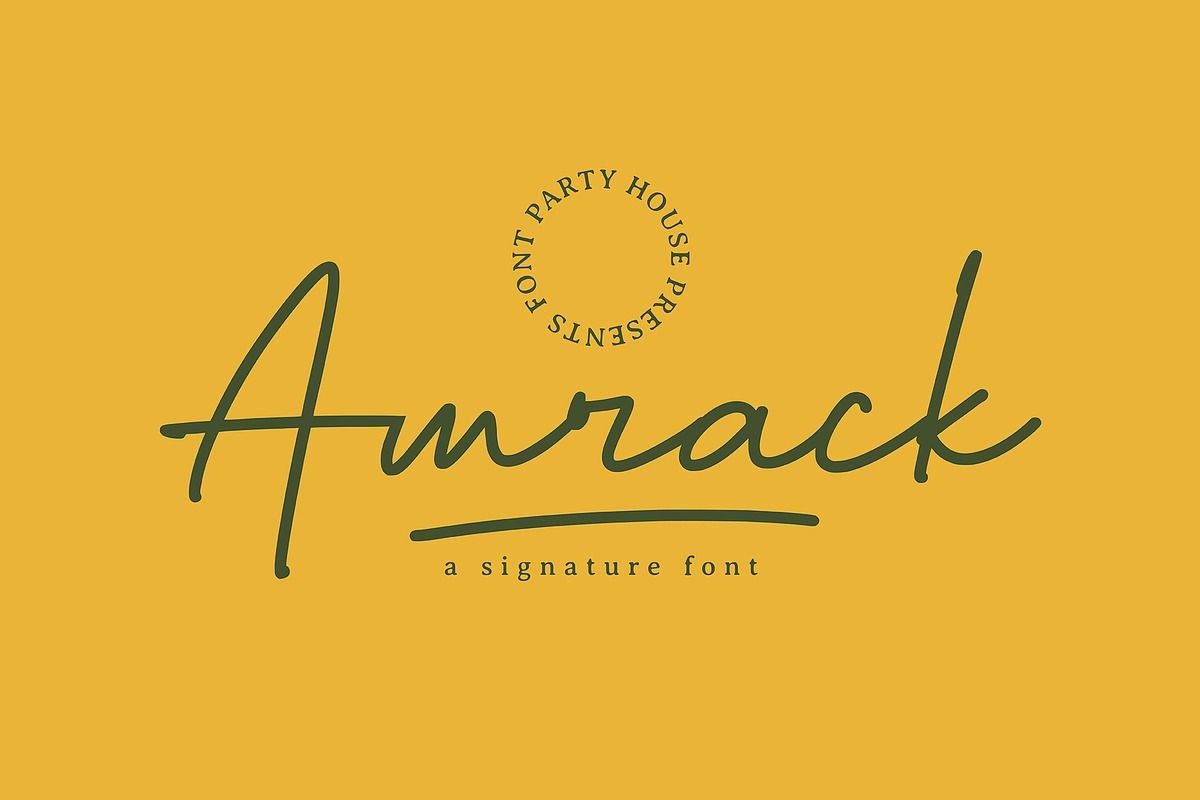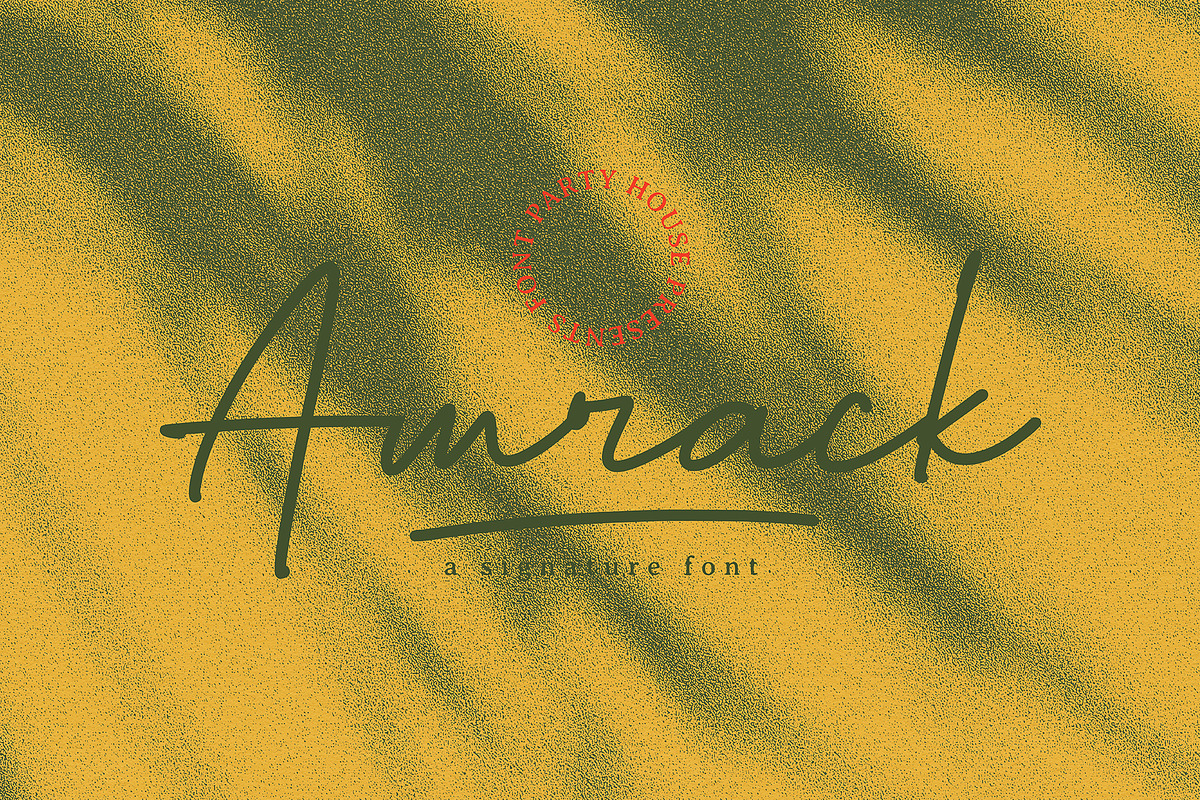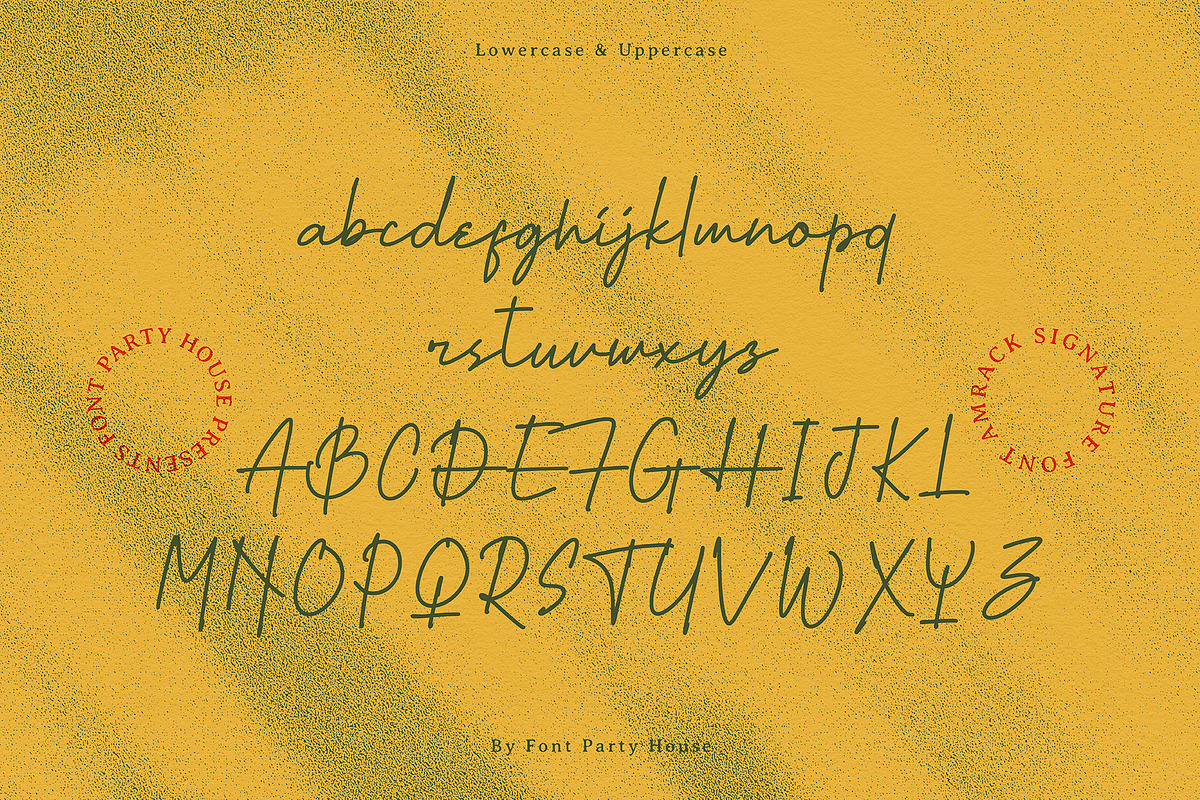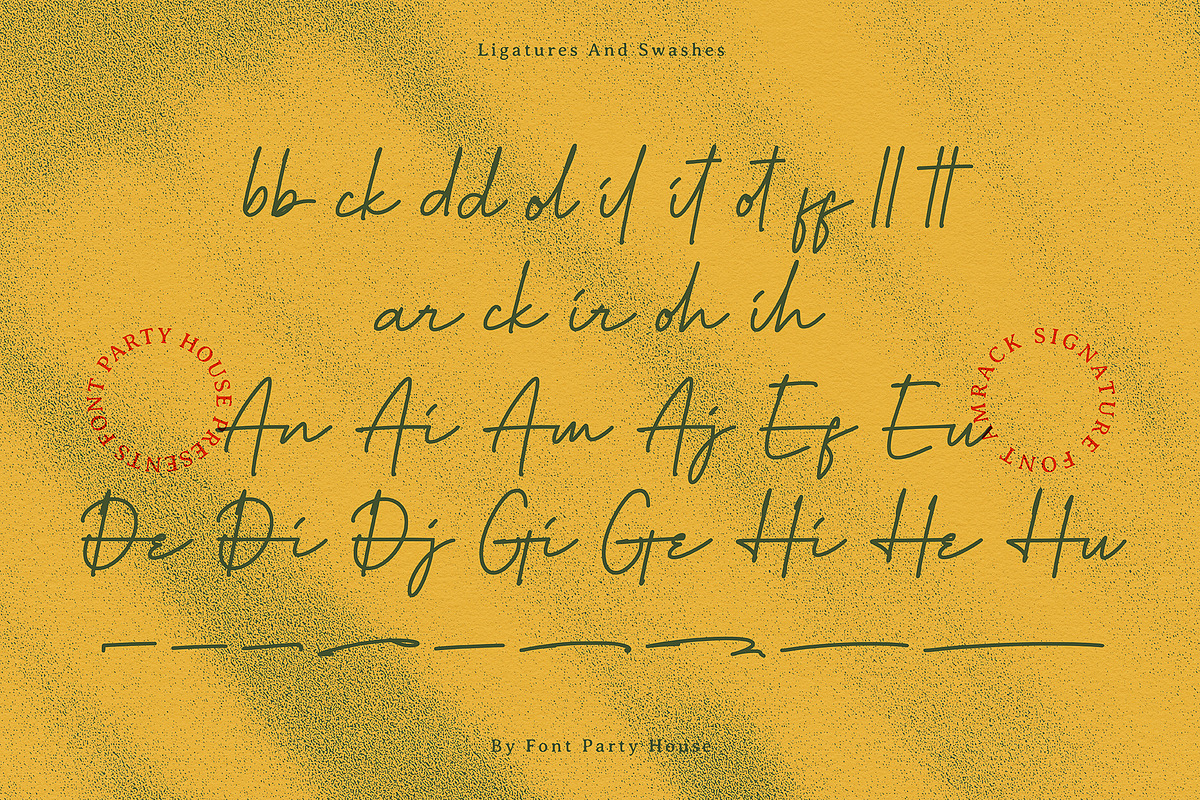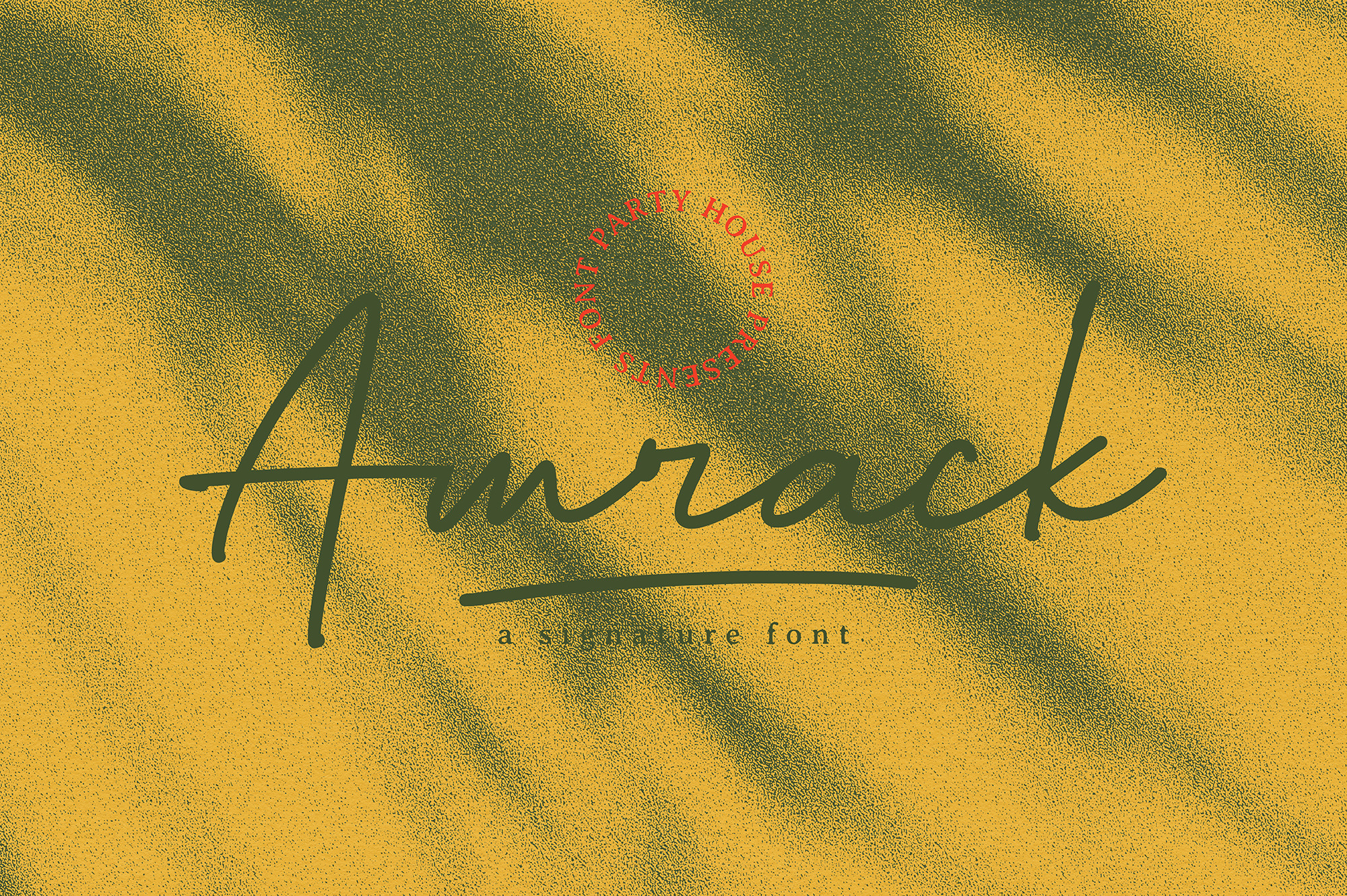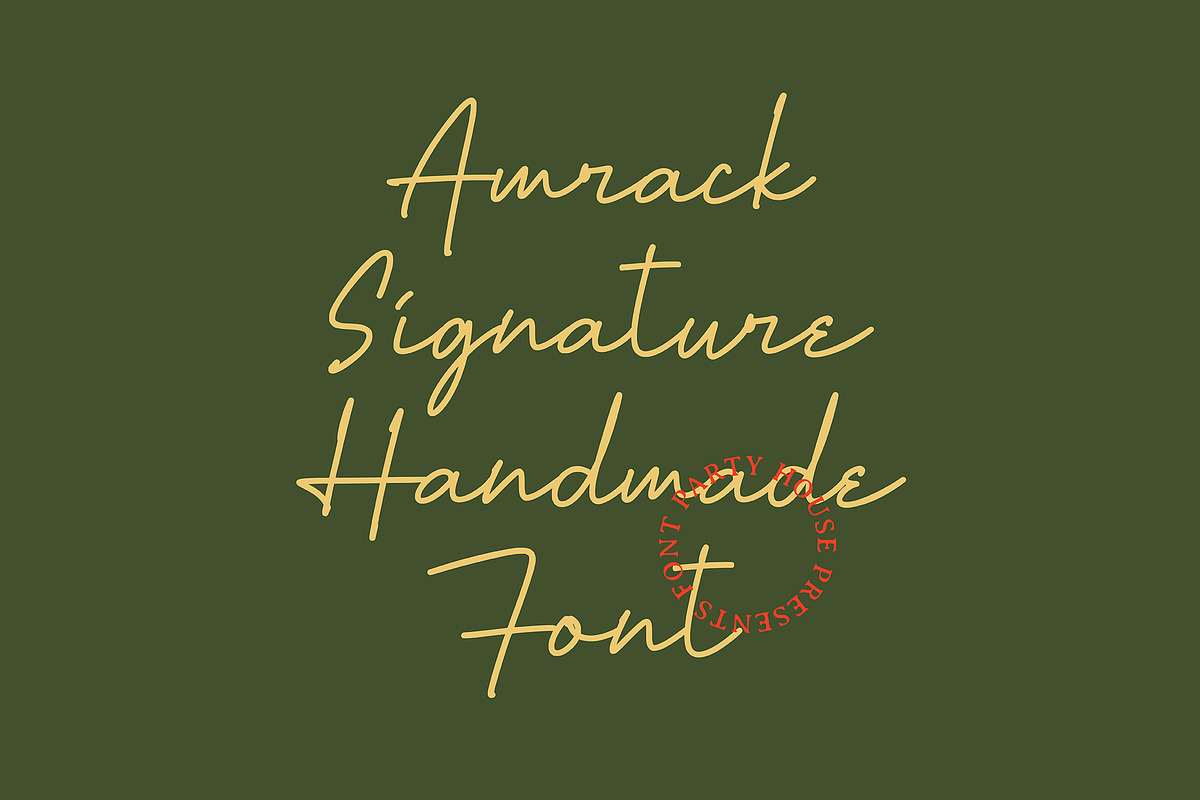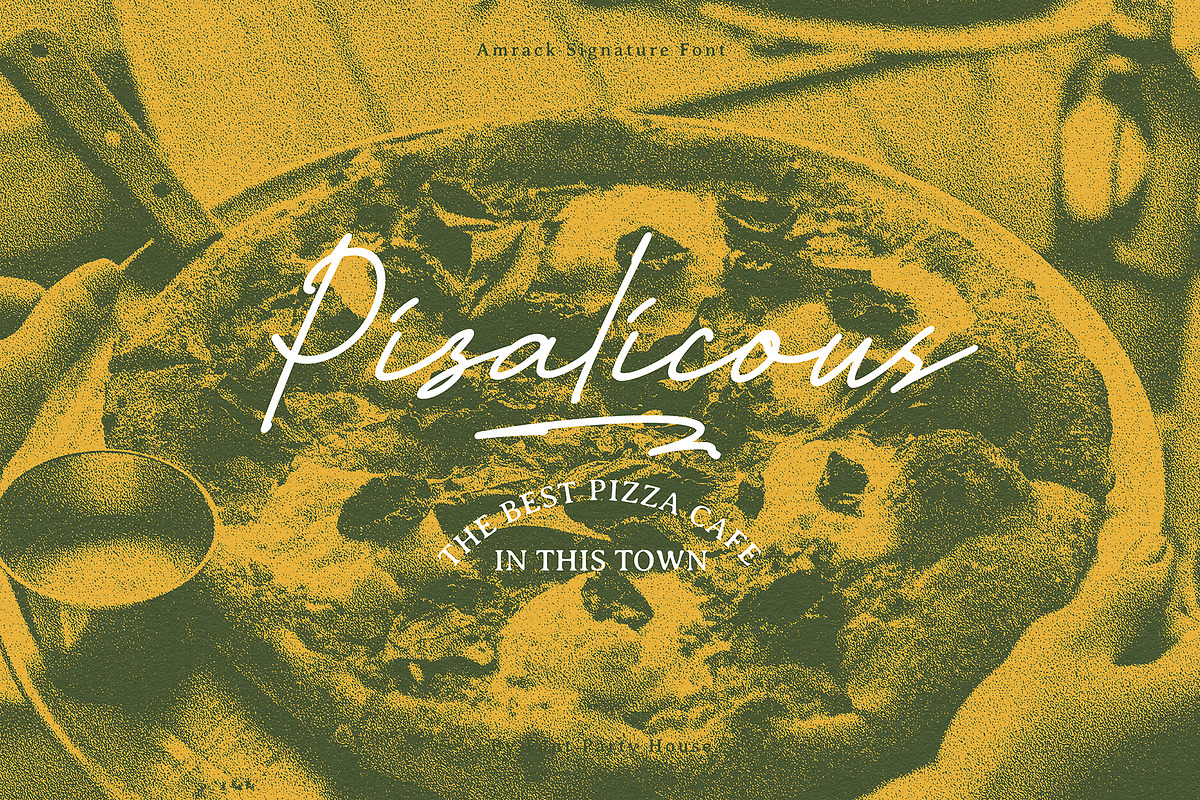
Amrack Signature Font
Amrack is a Signature Font is a font that has unique characteristics. This font is very powerful and suitable for use in creating logos, branding, headlines, labels, packaging, magazines, and much more.